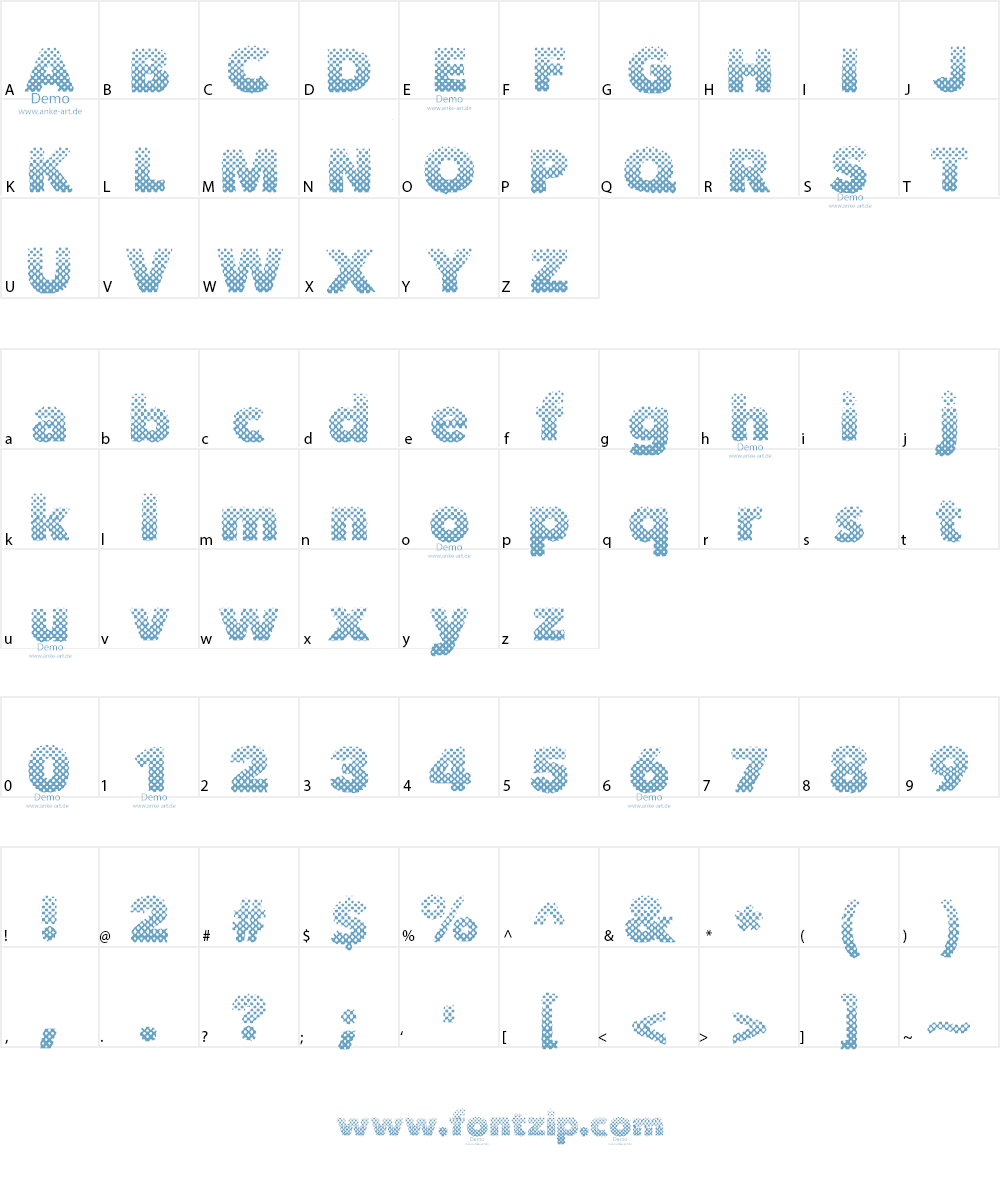
I made this font to use it on greeting cards, but it will work wonderfully on any project which requires a little retro newspaper touch.
Works best at large sizes!